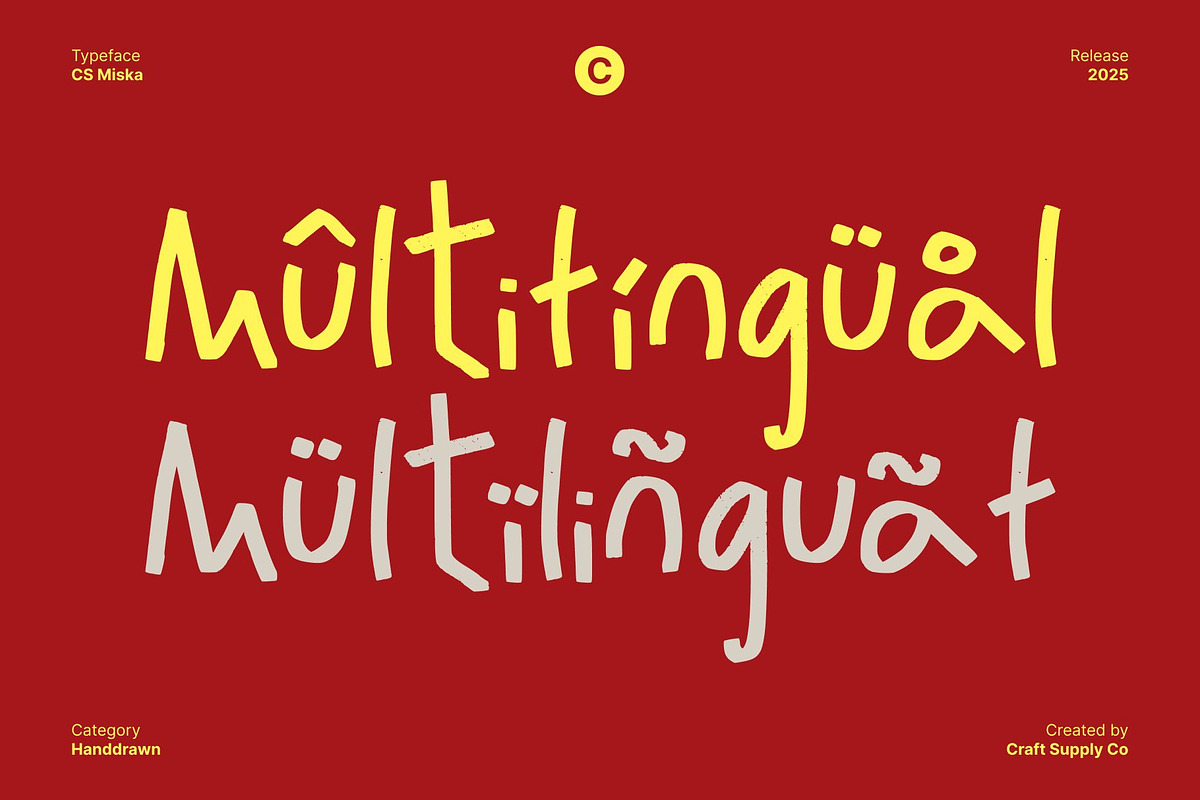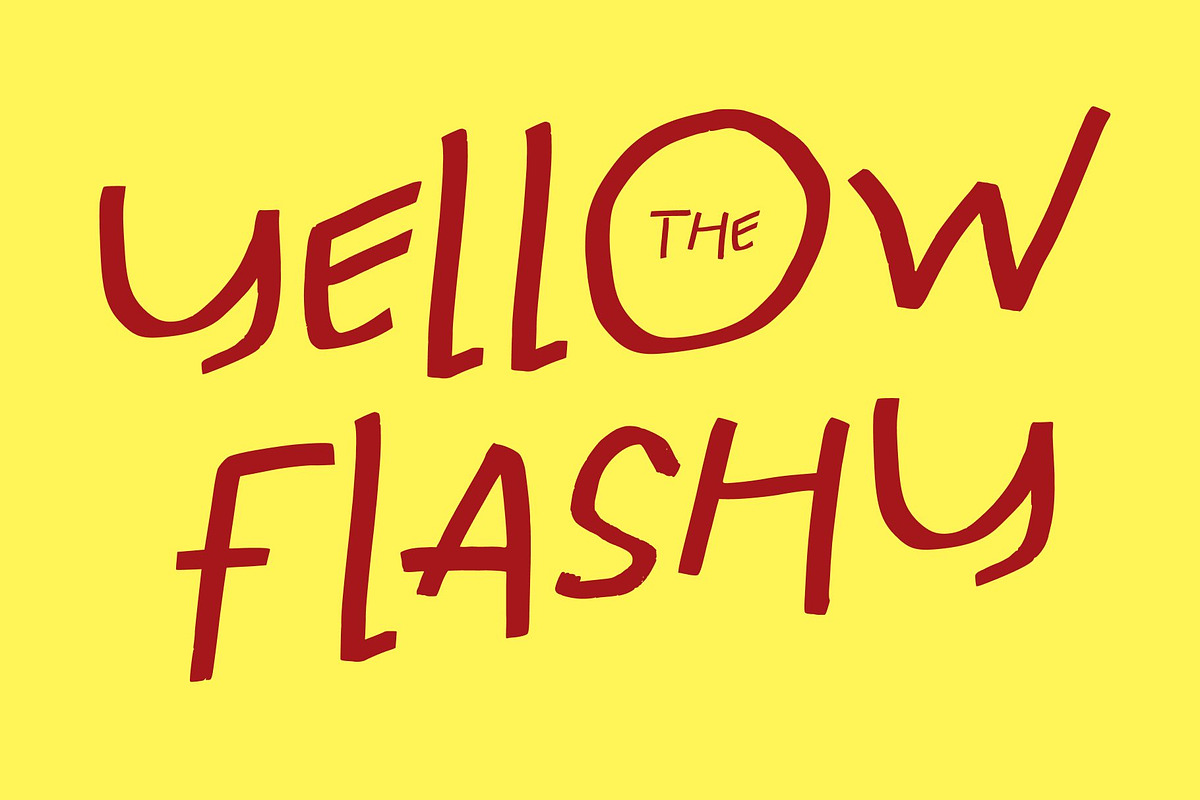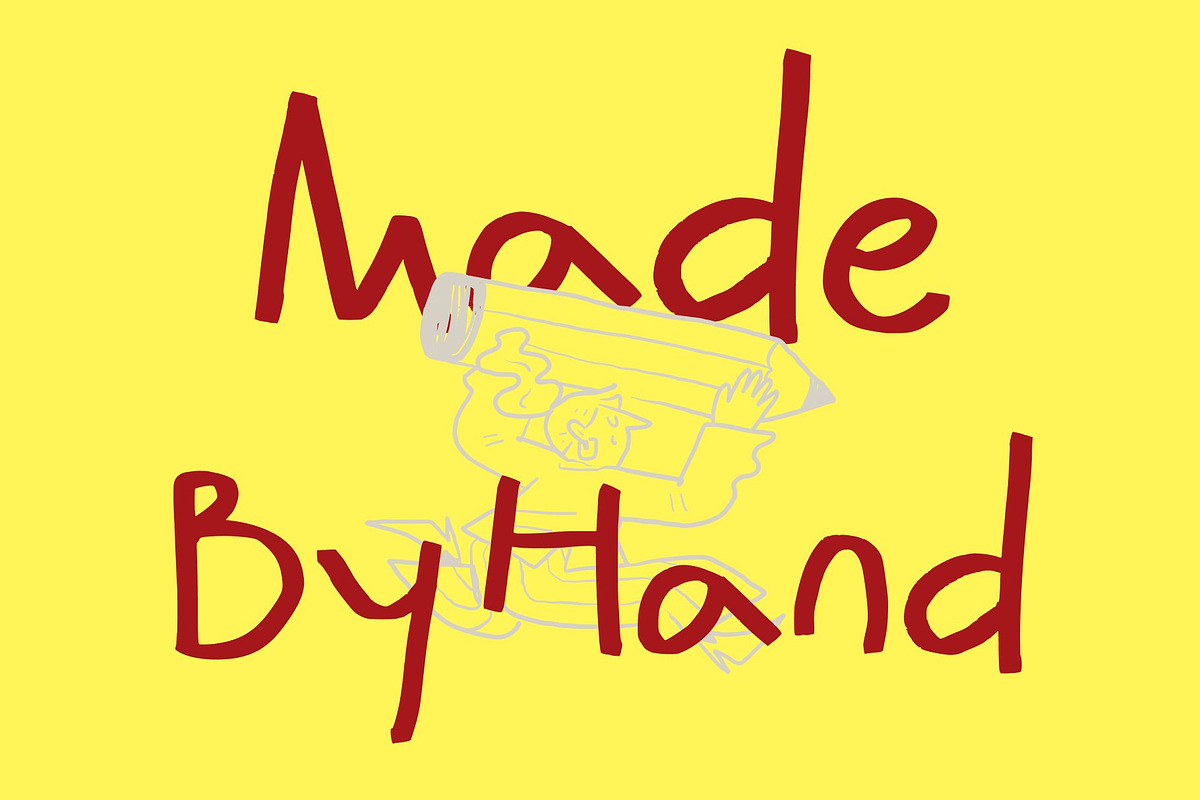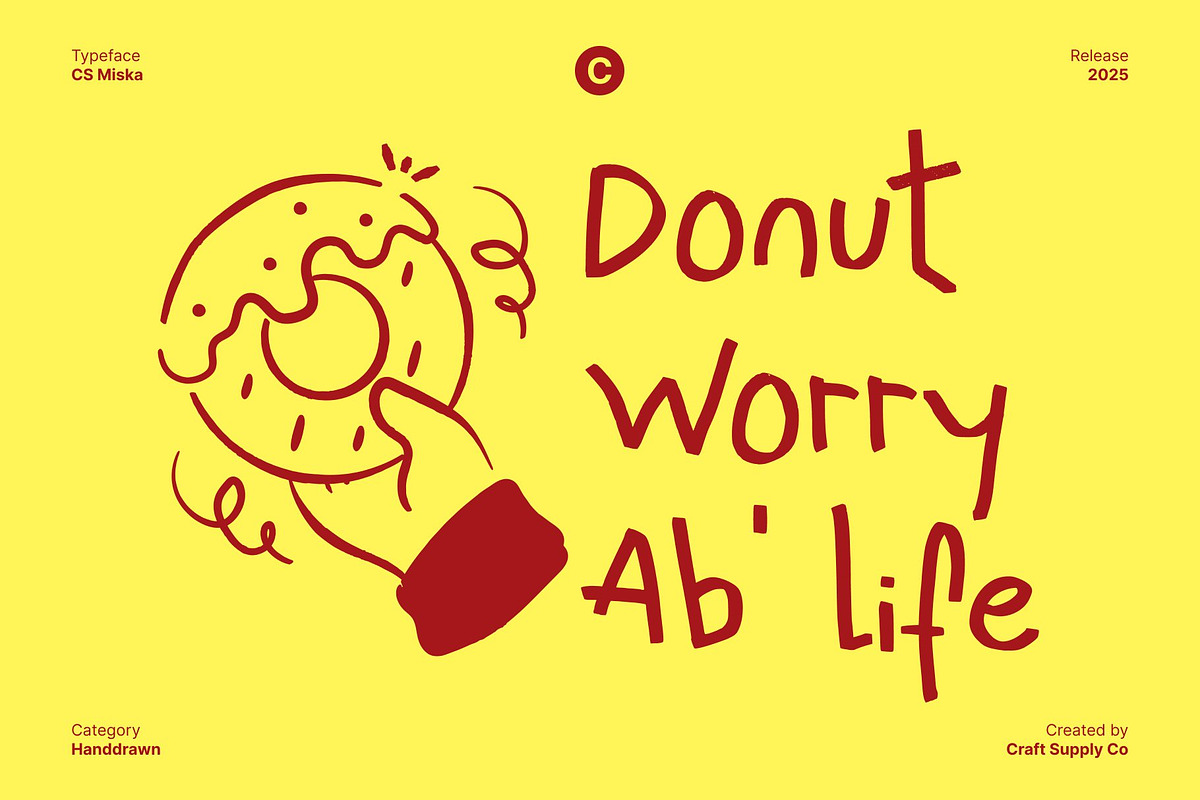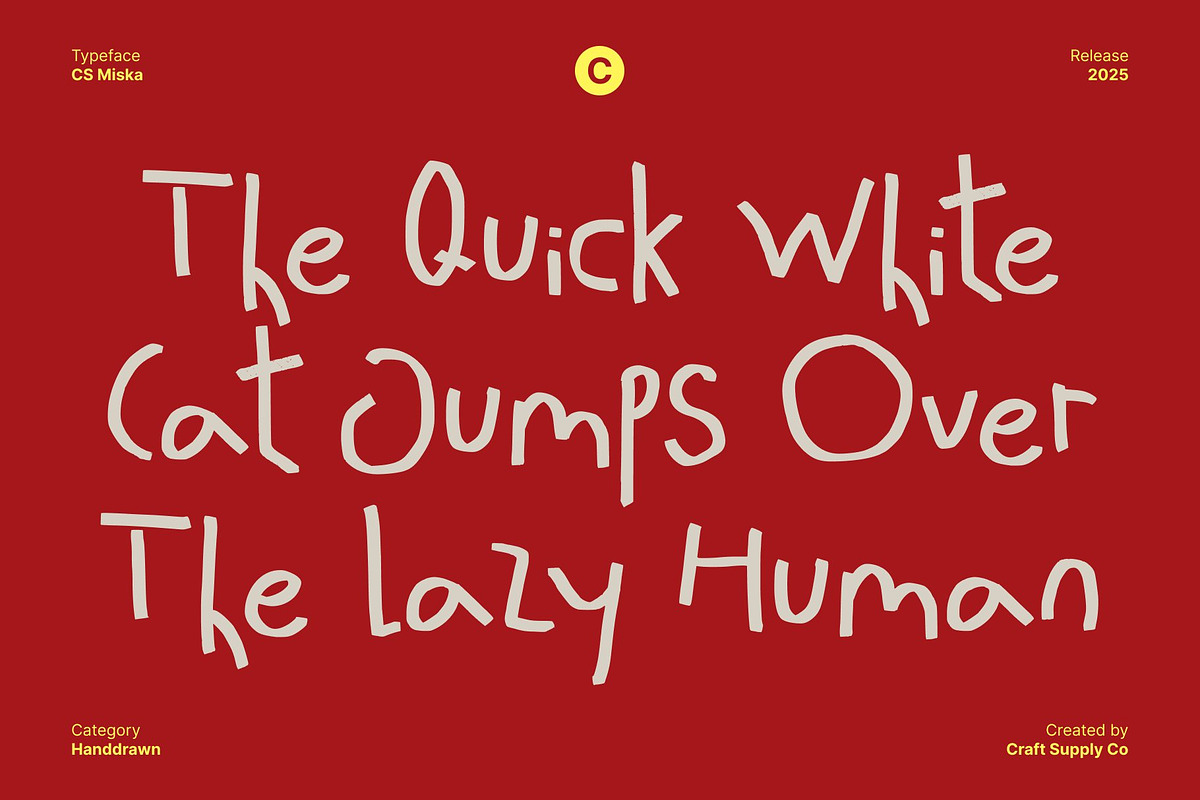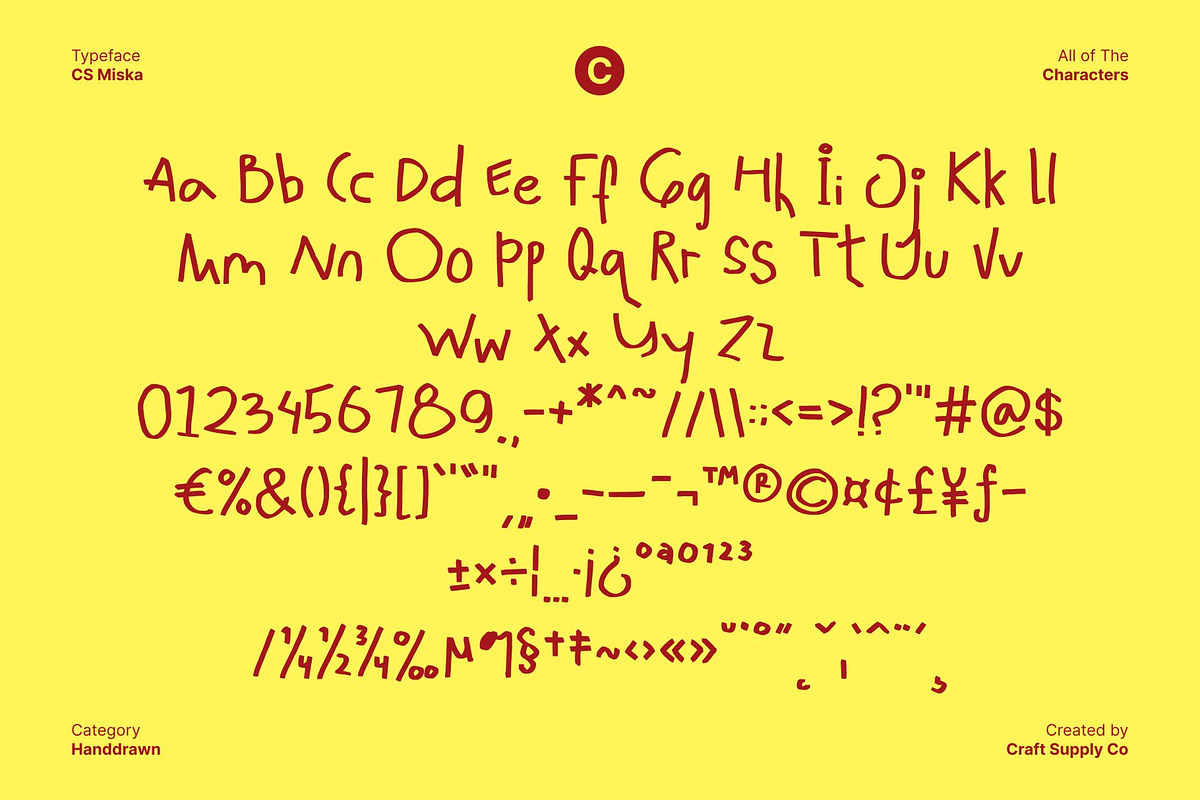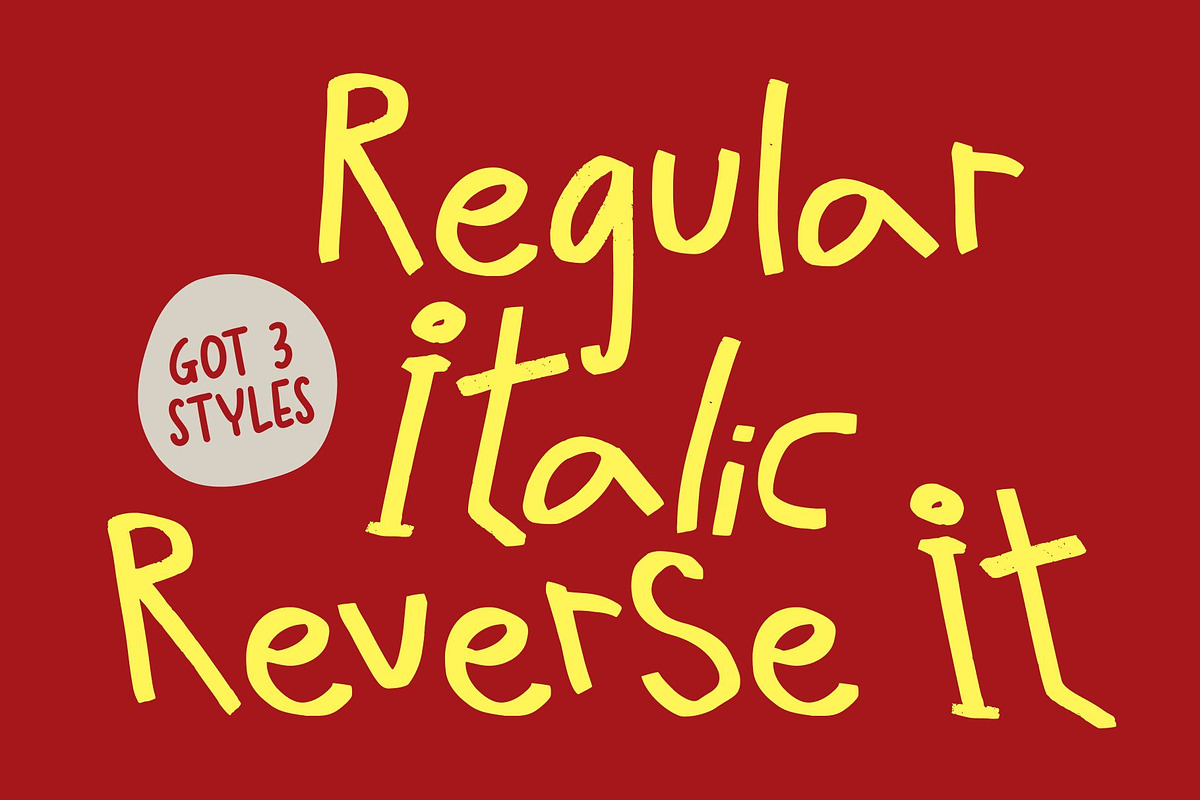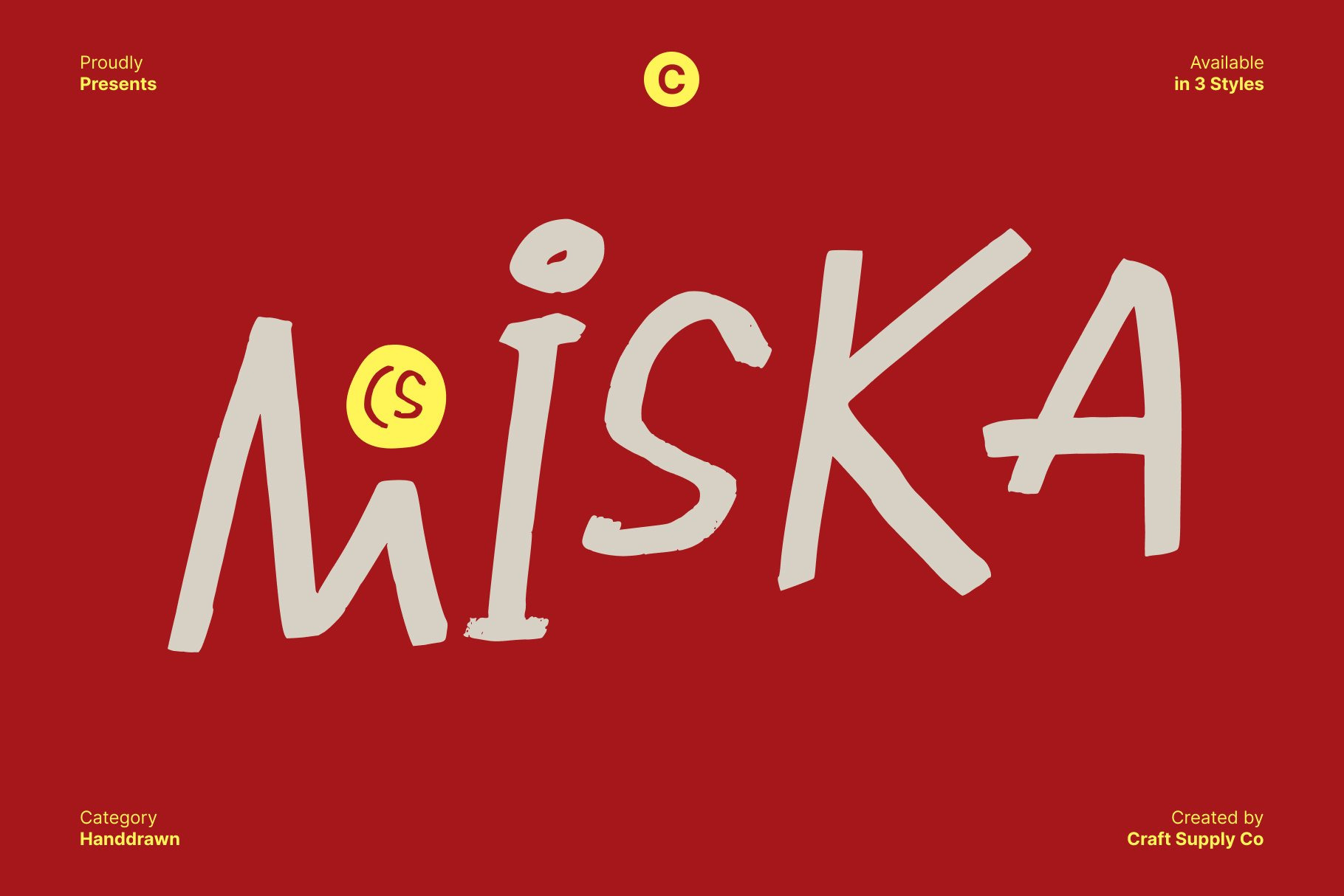
CS Miska – Messy Handwritten Font
CS Miska – Where Mess Meets Playfulness
Messy Handwritten Display This is a gritty, playful display font designed with irregular, scribbled strokes that capture a sense of spontaneity and fun. Its freely drawn style gives each character a unique personality, perfect for designs that want to feel lively, casual, and expressive.
Irregular Shapes for Creative Expression The messy and uneven forms of this font create a raw, handcrafted feel, ideal for projects where a relaxed, quirky vibe is desired. This feature makes it suitable for children’s designs, playful posters, or experimental branding that breaks from conventional typography.
Playful Energy for Fun Projects With its energetic and unrestrained style, this font injects personality and movement into any design. It works beautifully for party invitations, kids’ artwork, or playful editorial layouts, turning ordinary text into something visually engaging.
Versatile for Expressive Design Despite its irregularity, this font is highly versatile for creative projects that embrace imperfection. From casual branding to whimsical packaging and fun digital content, this font brings a charming, hand-crafted, and unforgettable look to every design.
- CS Miska Regular
- CS Miska Italic
- CS Miska Reverse Italic